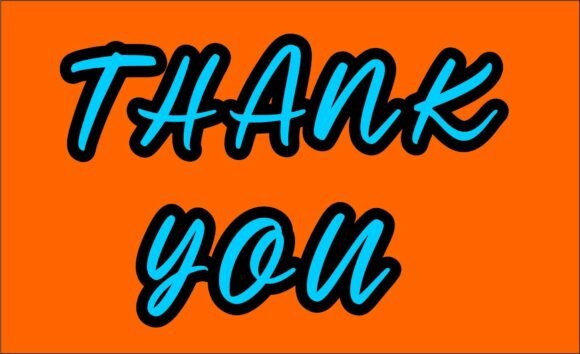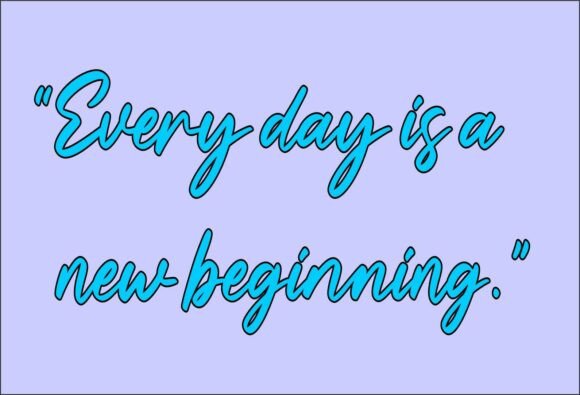
The Elisabeth Font: A Beautifully Crafted Script for Creative Minds
Have you ever been in the middle of a design project, and suddenly, you’re stuck on finding the perfect font? I recall a recent experience where I was working on a branding project for a wellness center, and I just couldn’t find a font that conveyed the right balance of elegance and approachability. That’s when I stumbled upon the Elisabeth font, and it completely transformed my design. In this article, I’ll share my journey with this beautiful font, its features, and how you can make the most of it in your creative projects.
A Personal Review: What I Love About Elisabeth
The Elisabeth font has quickly become one of my favorites, and here’s why:
- ✨ Natural Flow: Elisabeth exudes a sense of natural flow and casual elegance, making it perfect for designs that require a personal touch.
- ✅ Confidence and Elegance: The thick, confident strokes with a slight organic texture give it a unique feel that’s both modern and sophisticated.
- 🎨 Versatility: Its slanted axis and interlocking character joins make it suitable for various design applications, from wellness branding to lifestyle photography watermarks.
While Elisabeth is an amazing font, there are a few things to keep in mind:
- 🤔 Legibility at Small Sizes: Like many script fonts, Elisabeth may lose legibility at very small sizes. It’s best used at larger sizes or for headlines.
- ⚠️ Overuse of Swashes: While the font comes with beautiful swashes, overusing them can make the text look cluttered. Use them sparingly to add elegance to your design.
A Practical Guide: Using Elisabeth in Your Designs
The Story Behind Elisabeth
Elisabeth was designed with the intention of capturing the essence of handwritten elegance in a digital format. Inspired by traditional calligraphy and the organic feel of marker strokes on paper, the designer aimed to create a font that feels both personal and sophisticated. Whether it’s used for a logo, social media content, or a website header, Elisabeth brings a touch of handmade charm to any design.
- Q: What type of projects is Elisabeth best suited for?
- A: Elisabeth is perfect for wellness branding, lifestyle photography watermarks, floral shop identities, and inspirational social media content.
- Q: Does Elisabeth support OpenType features?
- A: Yes, Elisabeth supports OpenType features, including stylistic alternates, swashes, and glyphs. You can access these features in compatible design software like Adobe Photoshop and Illustrator.
- Q: How can I make Elisabeth look more elegant in my designs?
- A: Experiment with larger font sizes, elegant color palettes, and judicious use of swashes and stylistic alternates to enhance the elegance of Elisabeth in your designs.